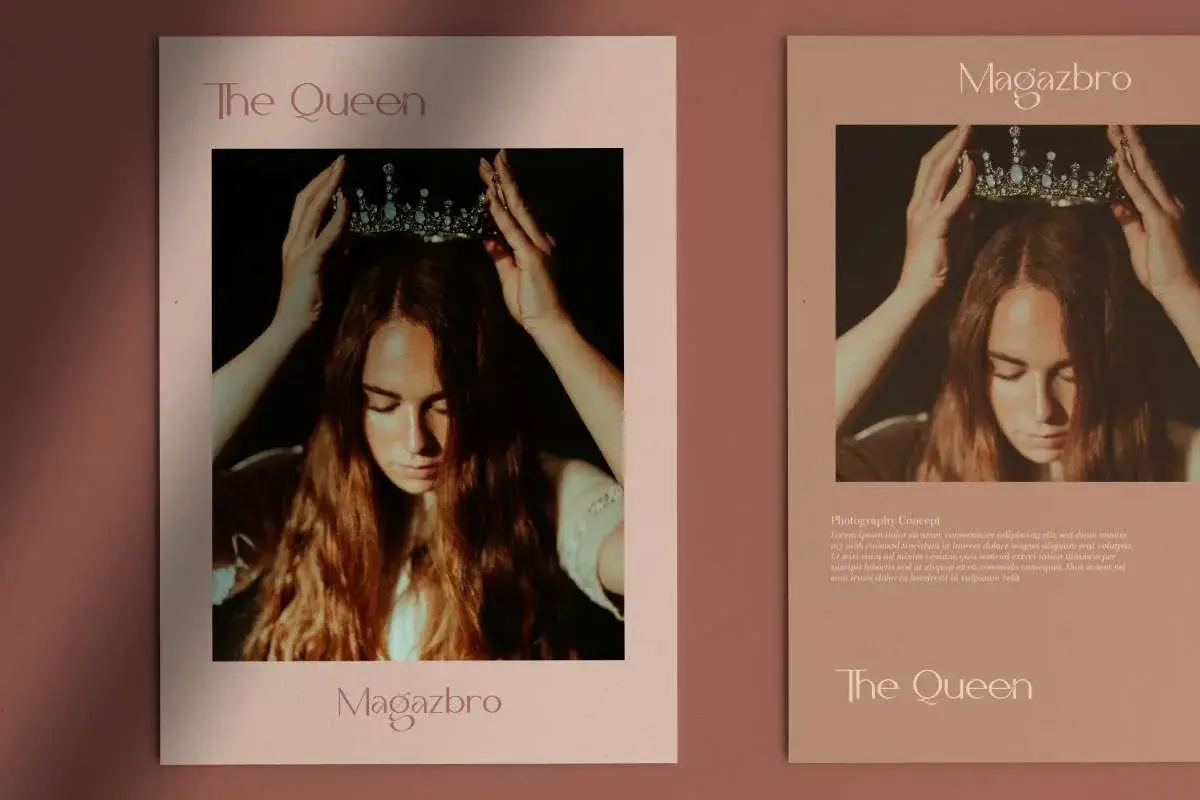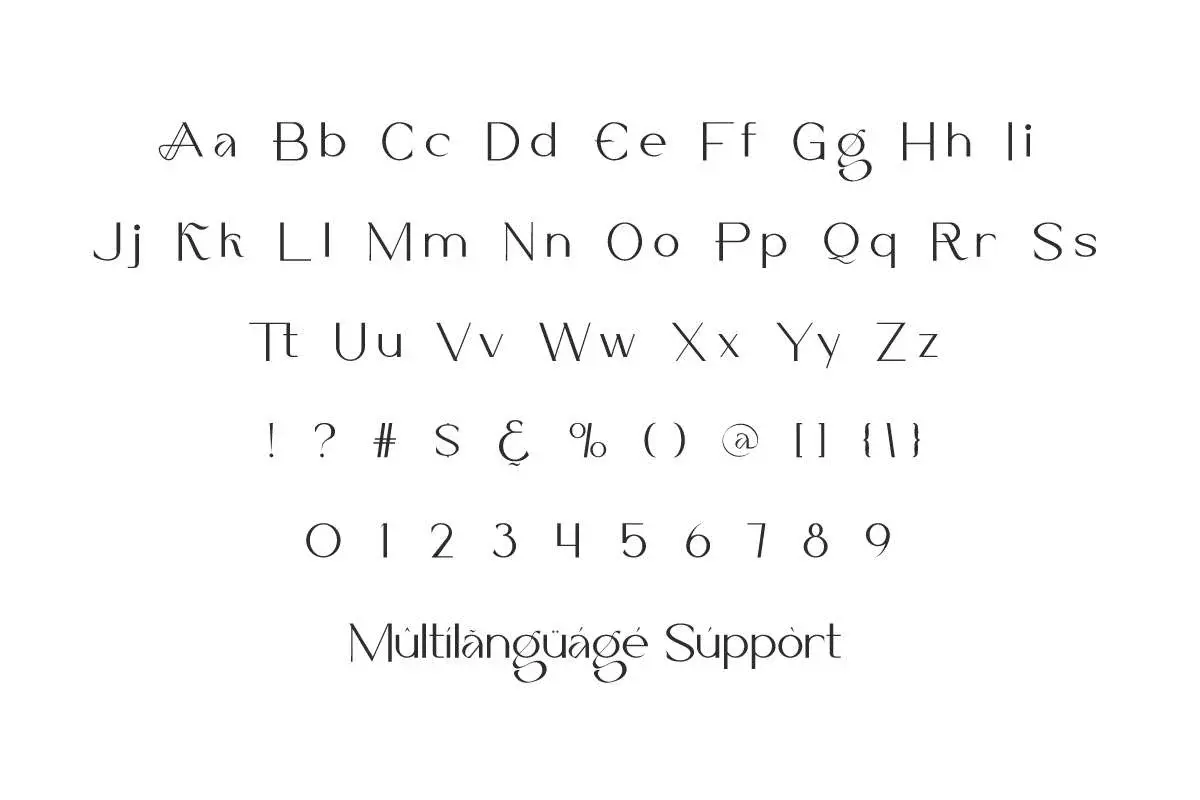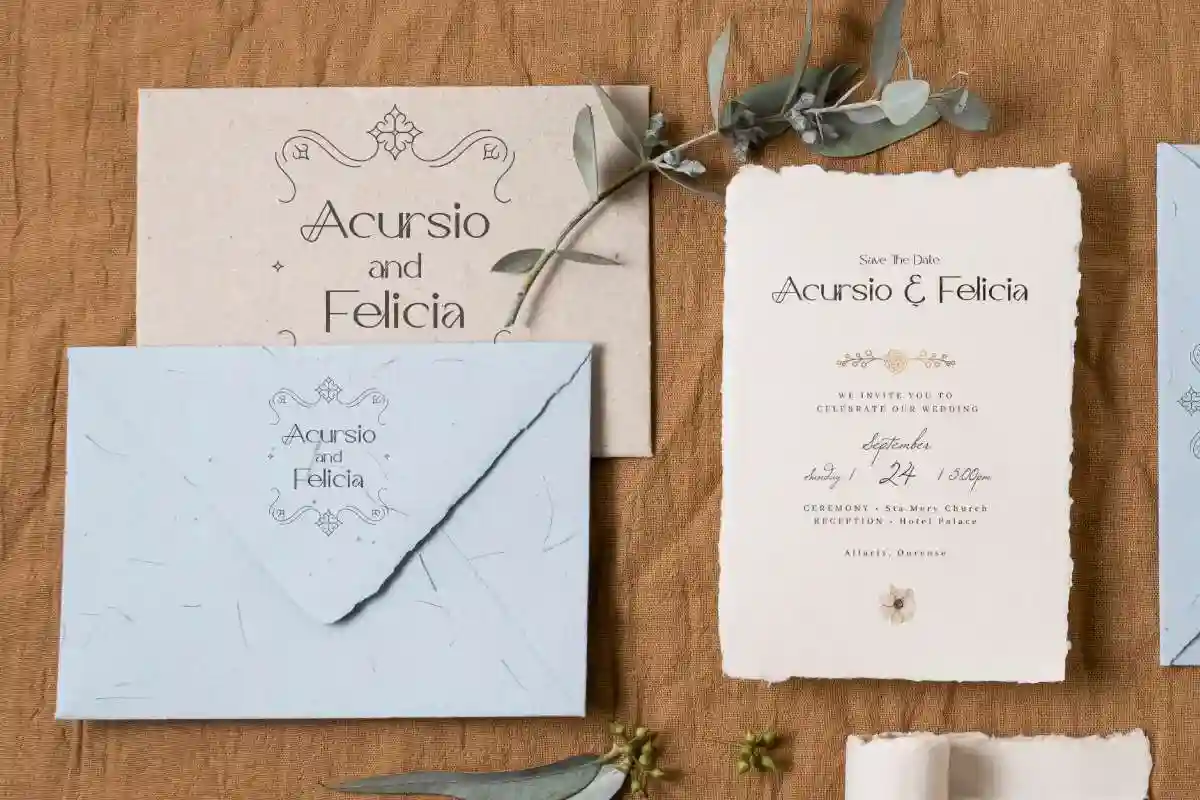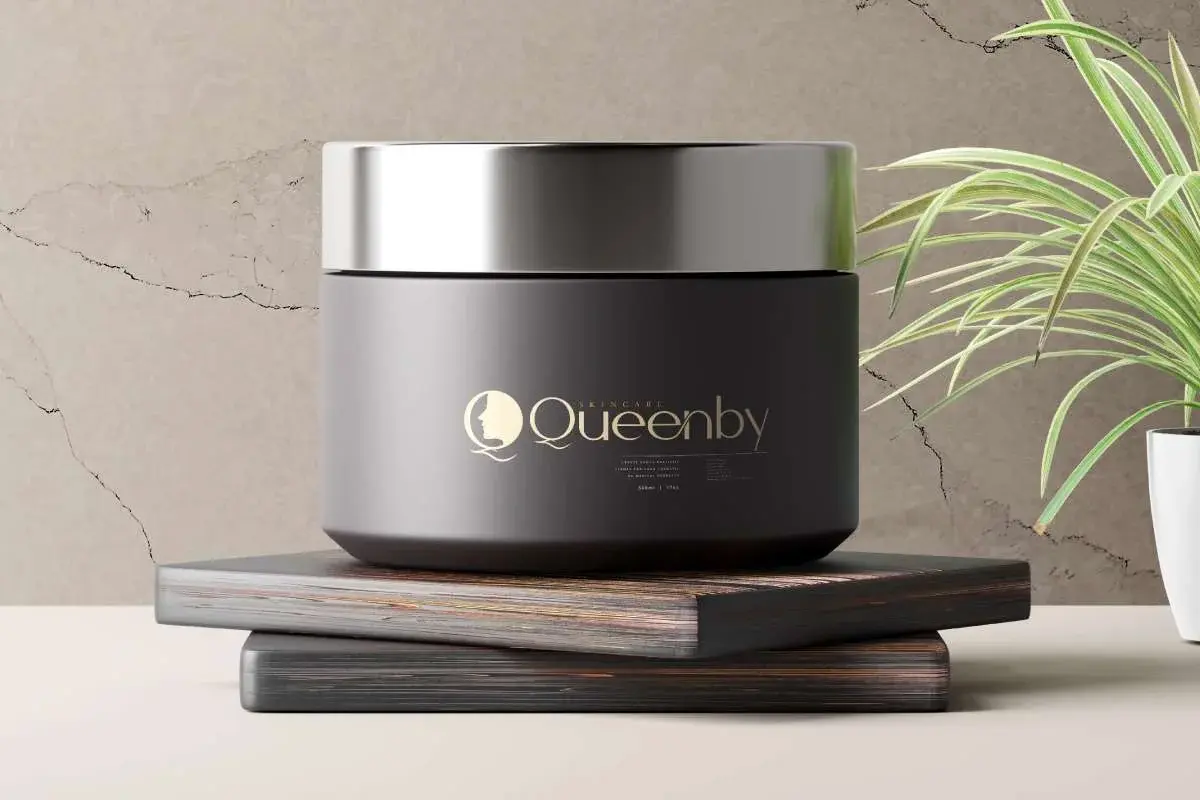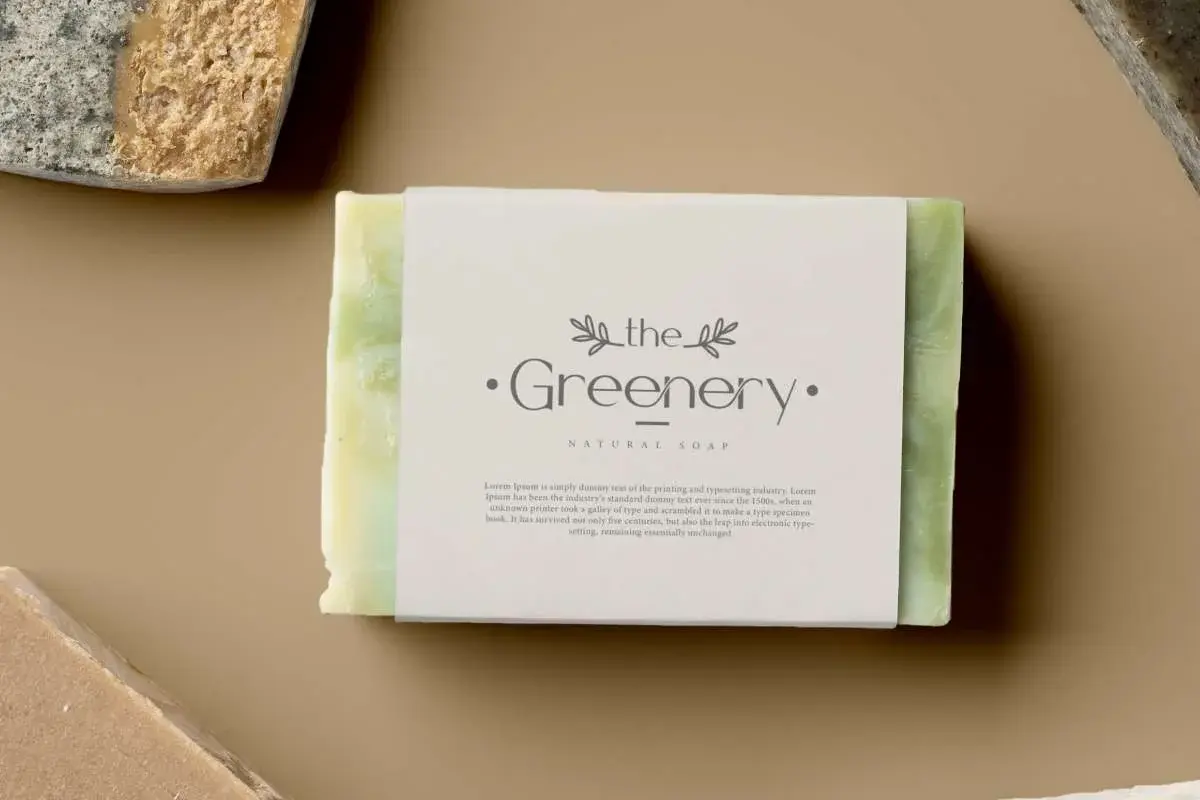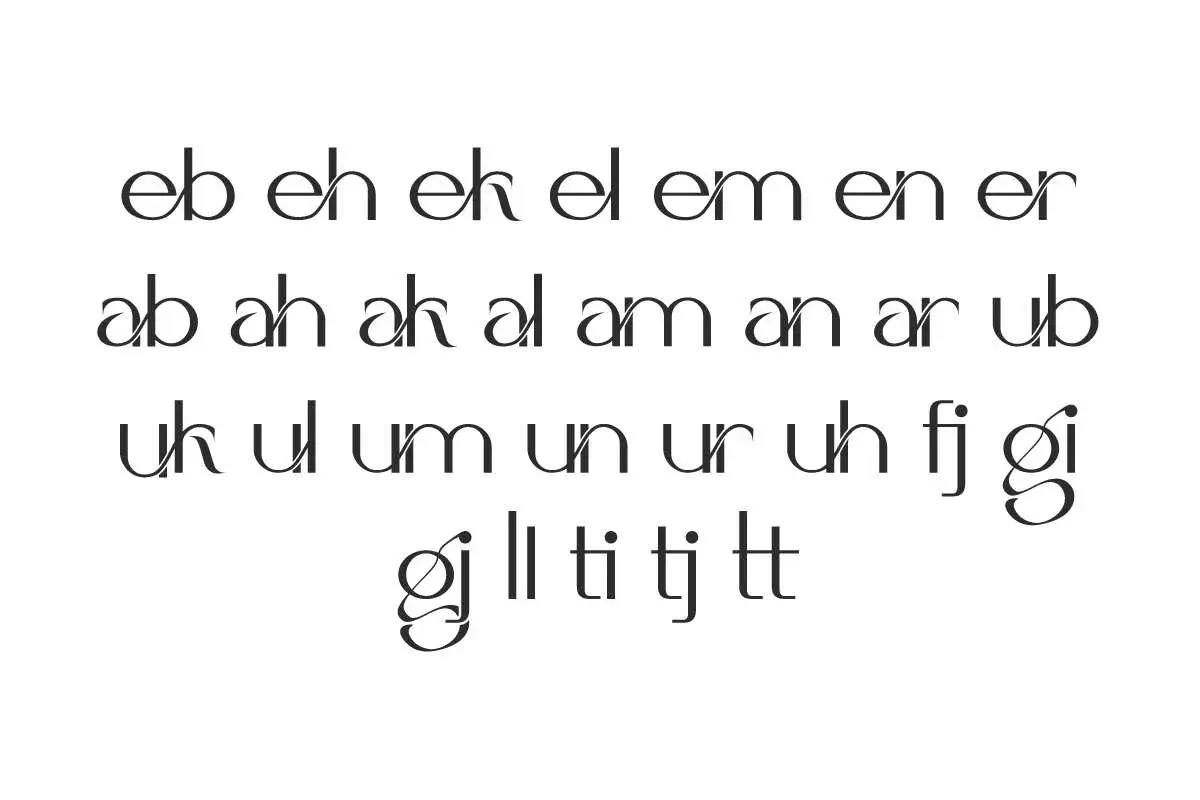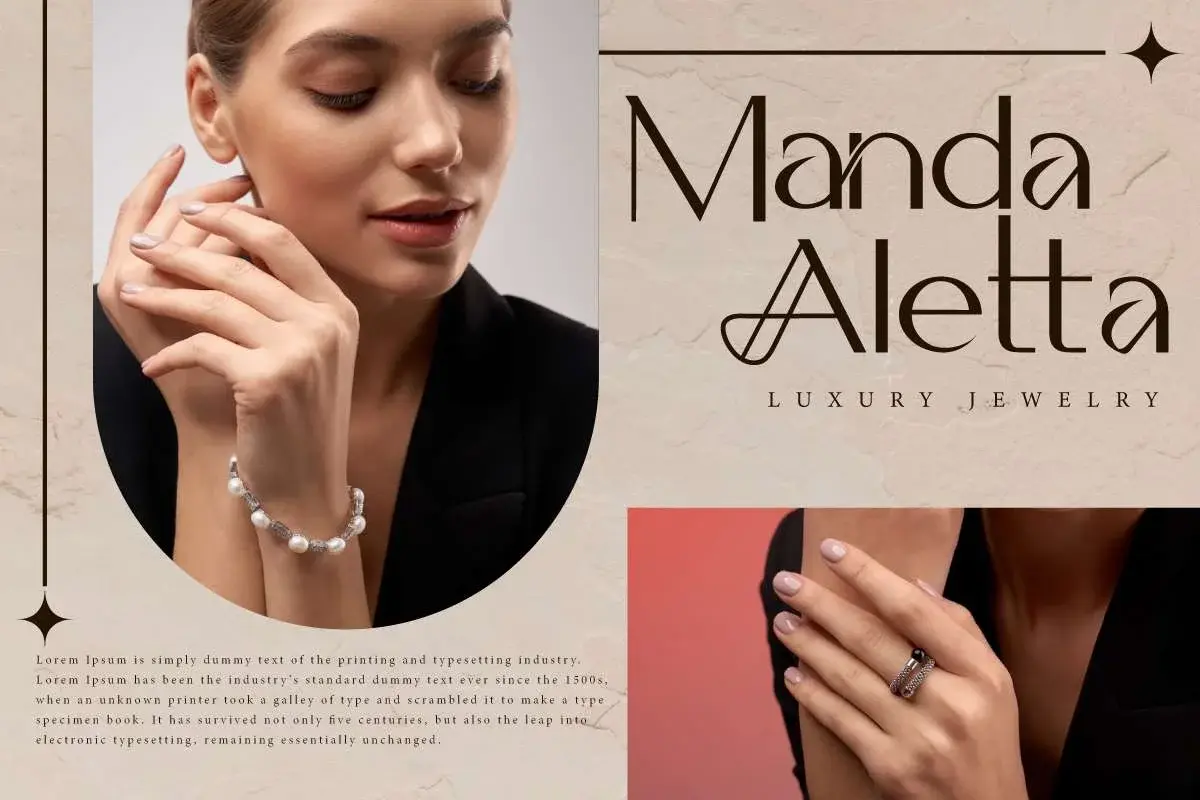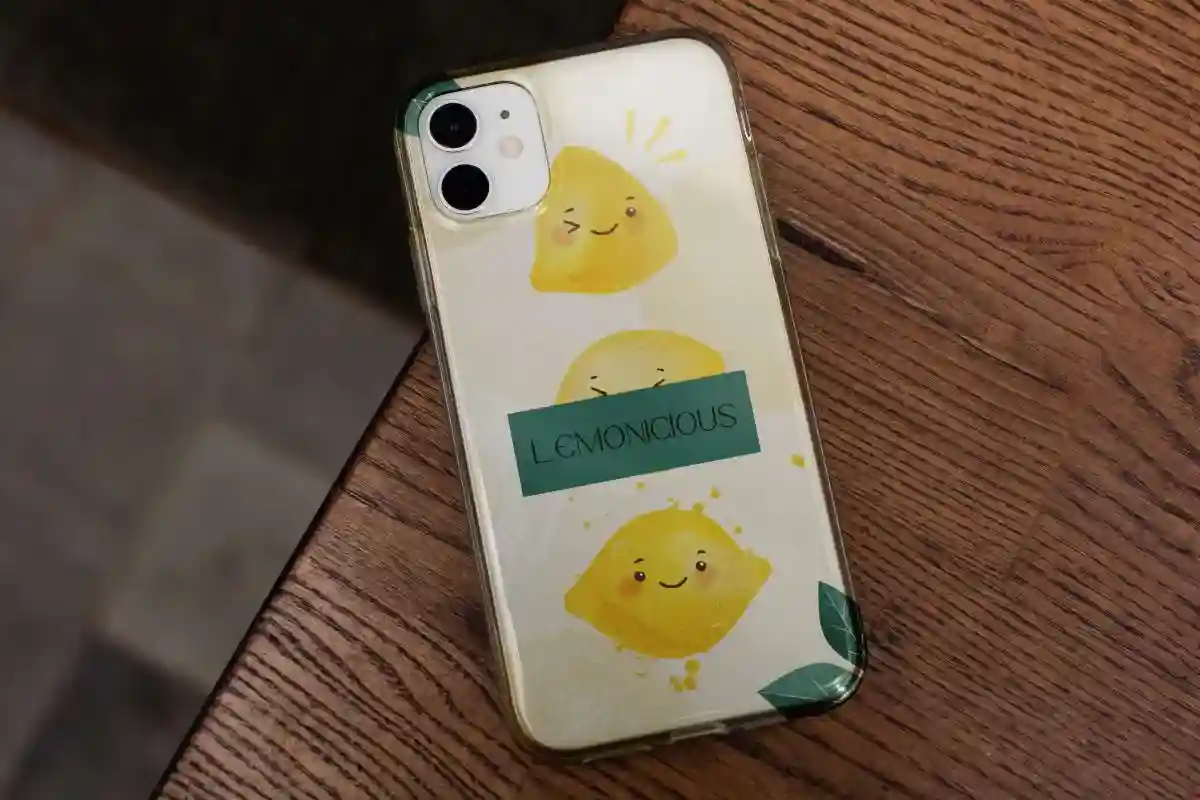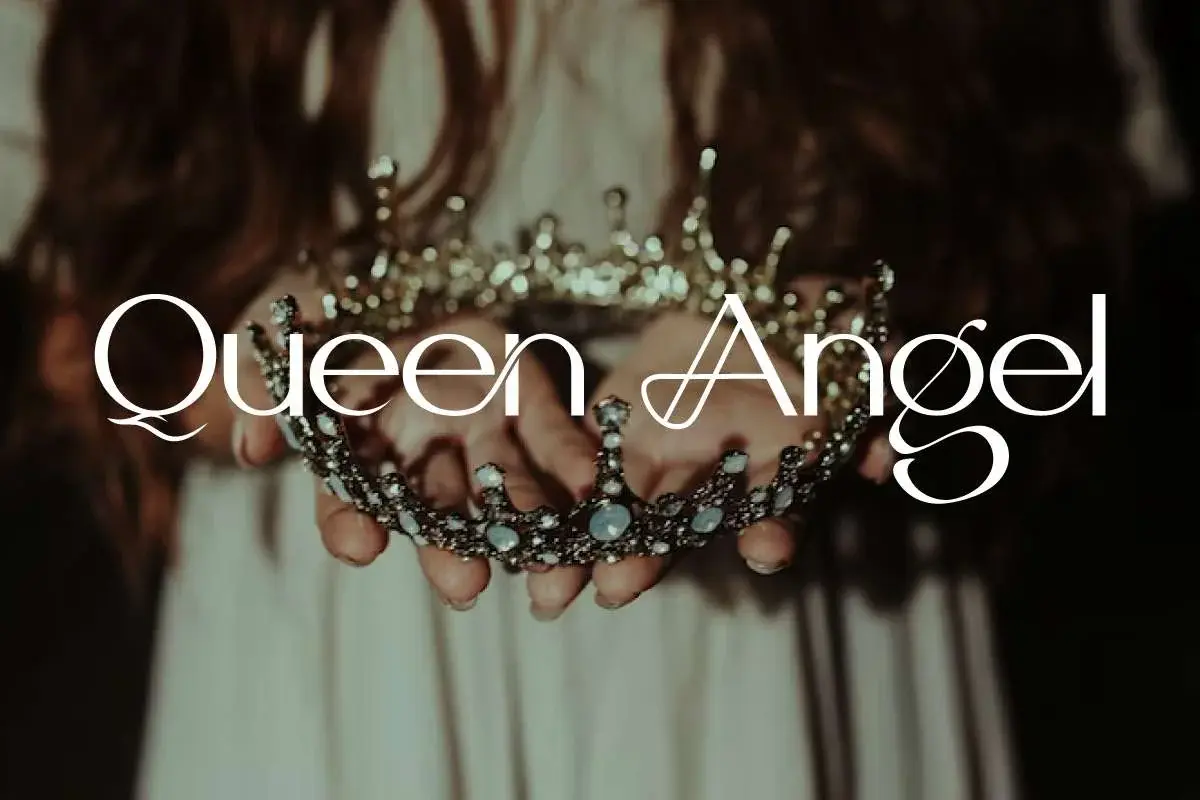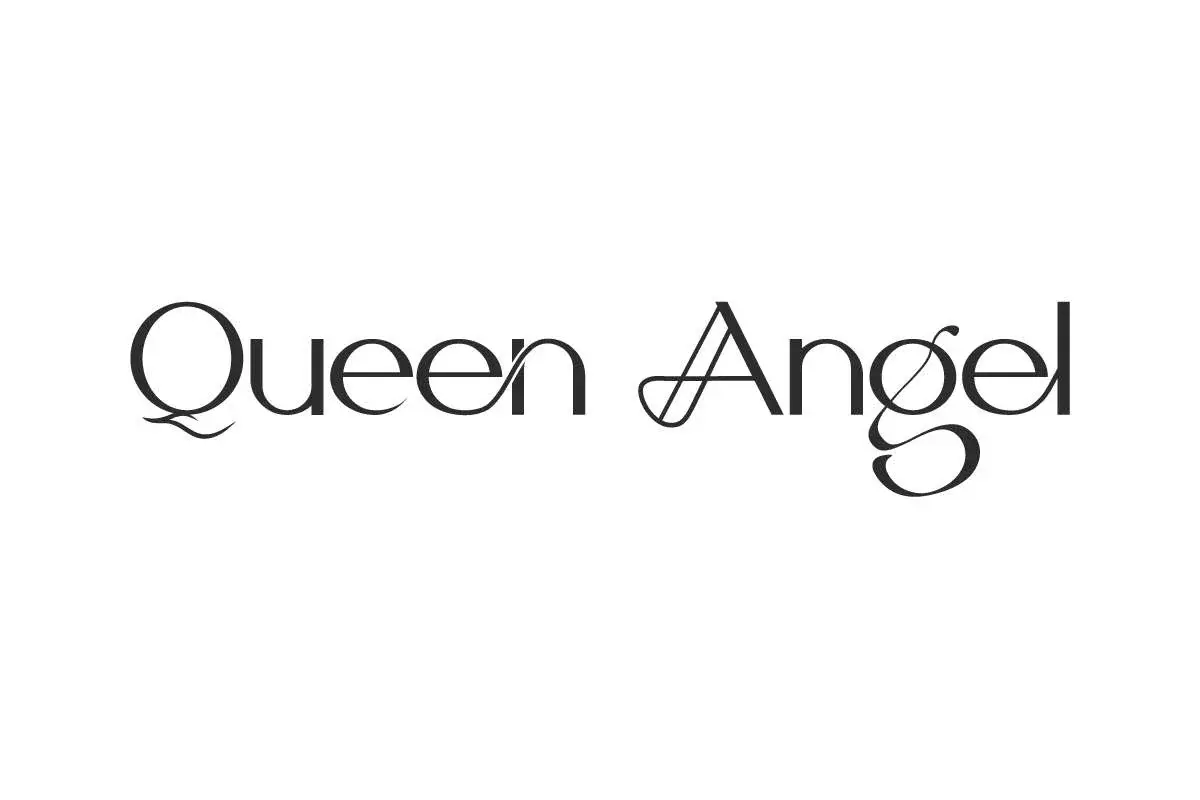
Queen Angel Font is a gorgeous sans serif font that elevates the concept of royalty. It will be perfect for invitation, jewelry, skincare, stationery, wedding, title, etc.
Queen Angel Font is an artistic sans serif display font with an impressive touch of elegance. It will be perfect for your many creative projects, such as billboard, brand logo, brochure, cover, header, invitation, label, magazine catalog, mockup design, poster, product packaging, screen print, signage, stationery, sticker, title, website, etc.
Queen Angel Font includes full set of Uppercase and Lowercase Basic Characters, Number, Punctuation, Symbol, and Ligature. This gives a classy look to each character, apart from that the shape is also uniquely made which makes it stand out making it suitable for your business, such as accessories, craft, fashion designer, furniture, jewelry, photography, printing, publishing, restaurant, skincare, spa salon, wedding, and many more.